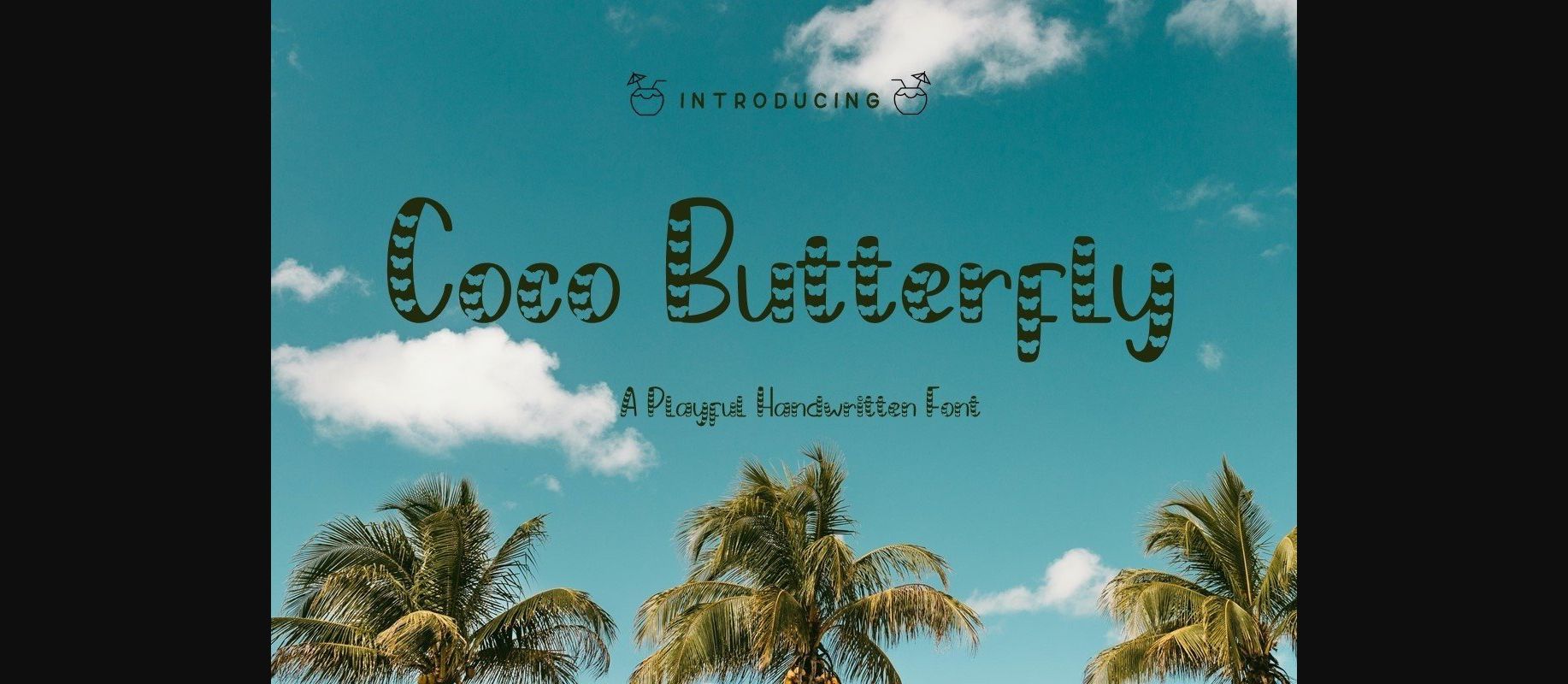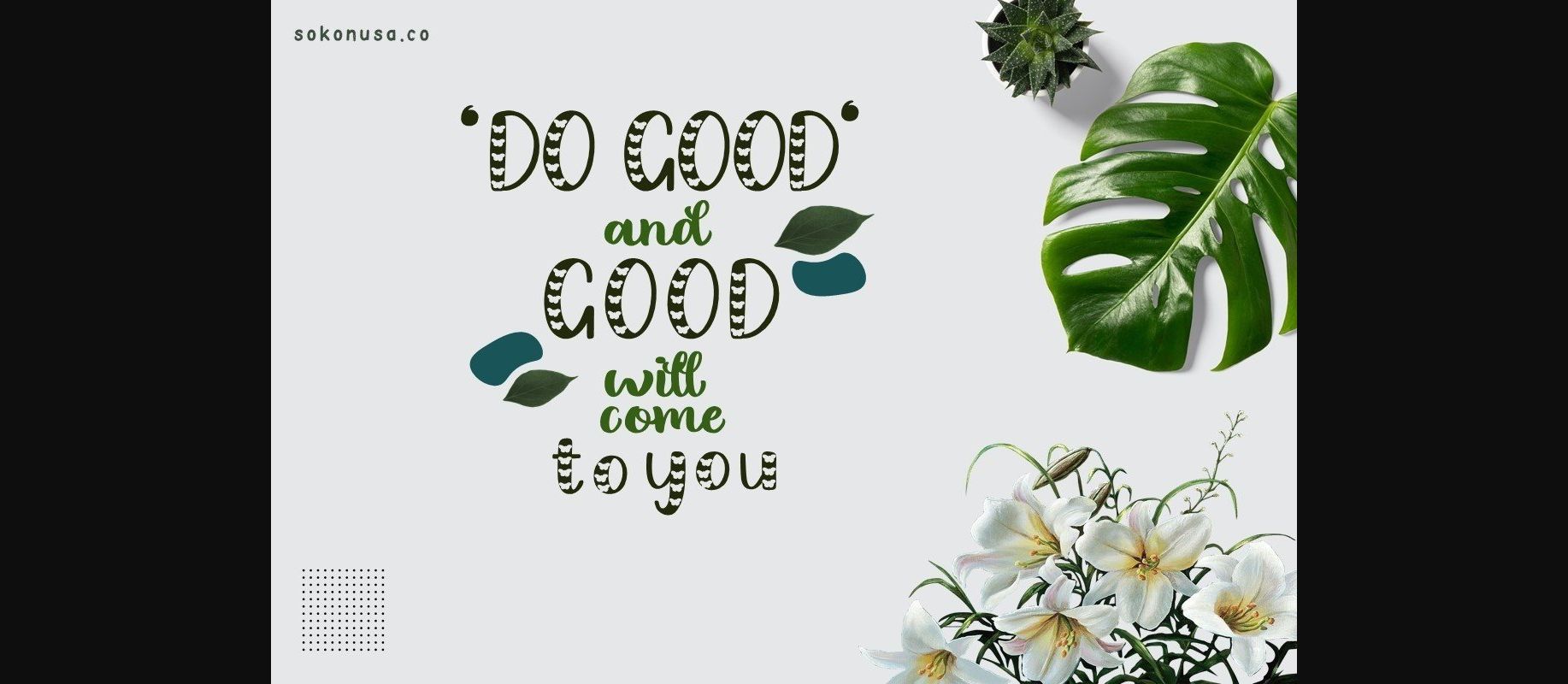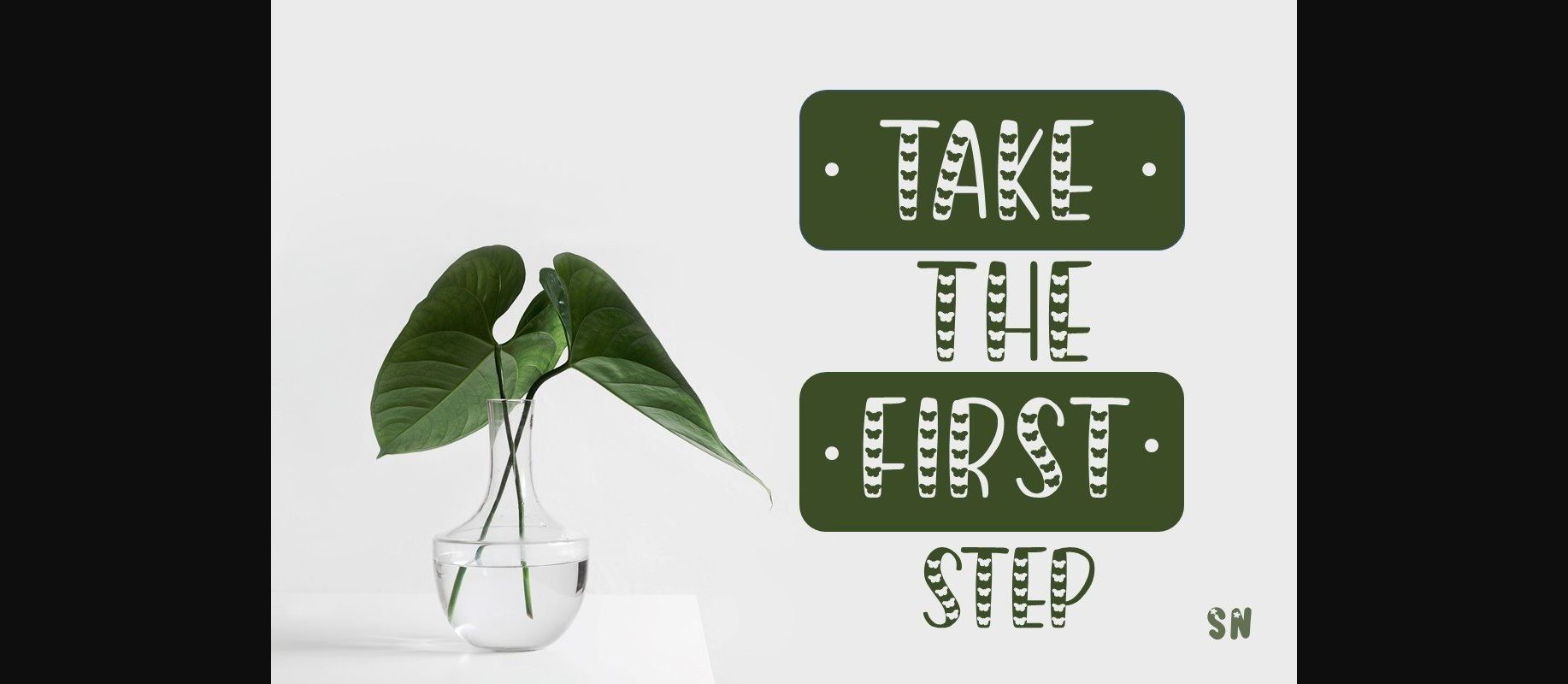
About Coco Butterfly Font
Coco Butterfly is a cute and unique decorative display font. It has a playful and whimsical style and it will undoubtedly immerse your designs into a magical world.